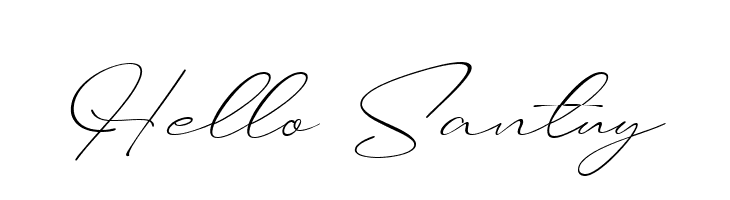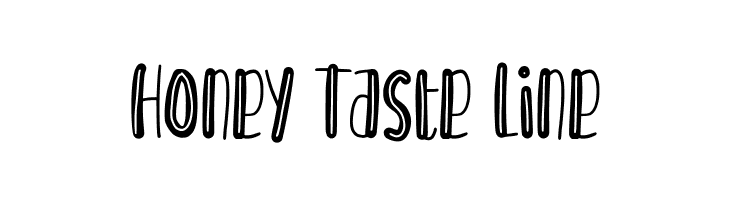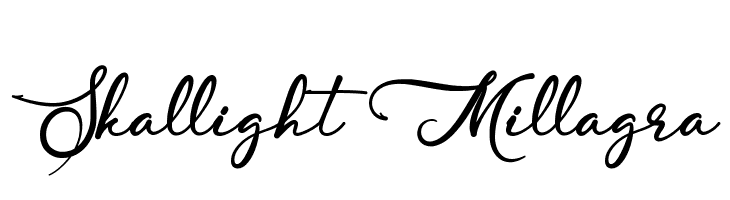
An elegant, flowing script font with a sophisticated and graceful style.
An elegant and flowing script font with graceful swashes and artistic letterforms.
An elegant, flowing script font with graceful loops and cursive strokes.
An elegant script font with flowing cursive style and graceful swashes.
An elegant and flowing script font with graceful curves.
A graceful script font with flowing, cursive lines and elegant flourishes.
An elegant, flowing script font with interconnected letters and graceful curves.
A playful, hand-drawn font with elongated, flowing letterforms.
A fluid and graceful script font with a handwritten appearance.
An elegant, flowing script font with graceful curves and dynamic slant.